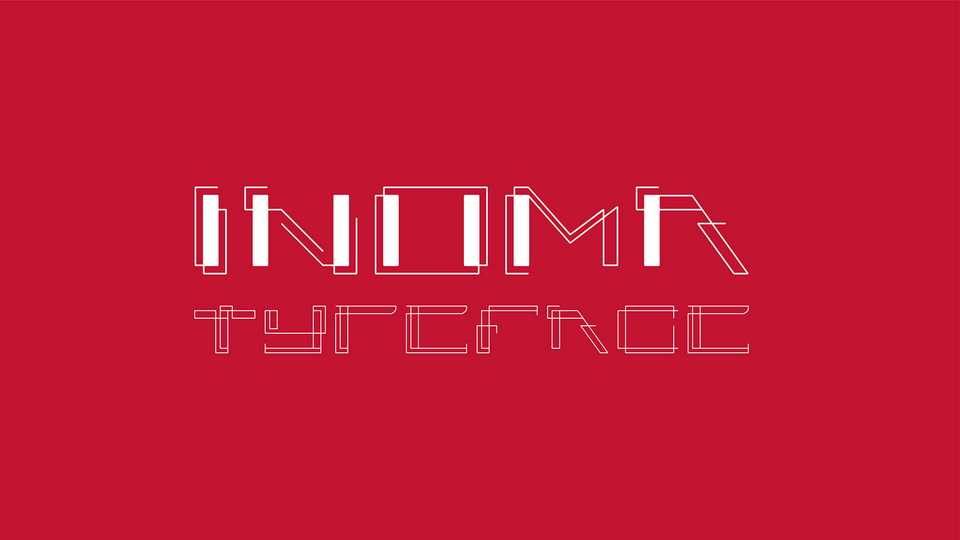
Download Inoma font, a display typeface created with the idea of dropping legibility rules. Inoma is a highly decorative futuristic font with capital letters, so it will look great in headlines and posters.
Designer: Anastasiya Ivanova